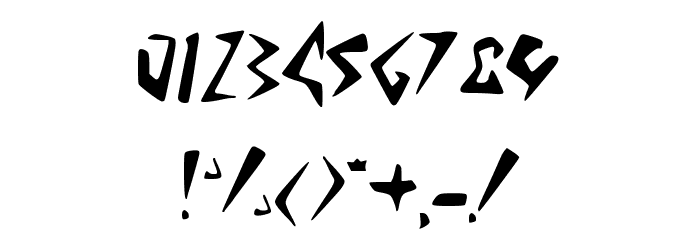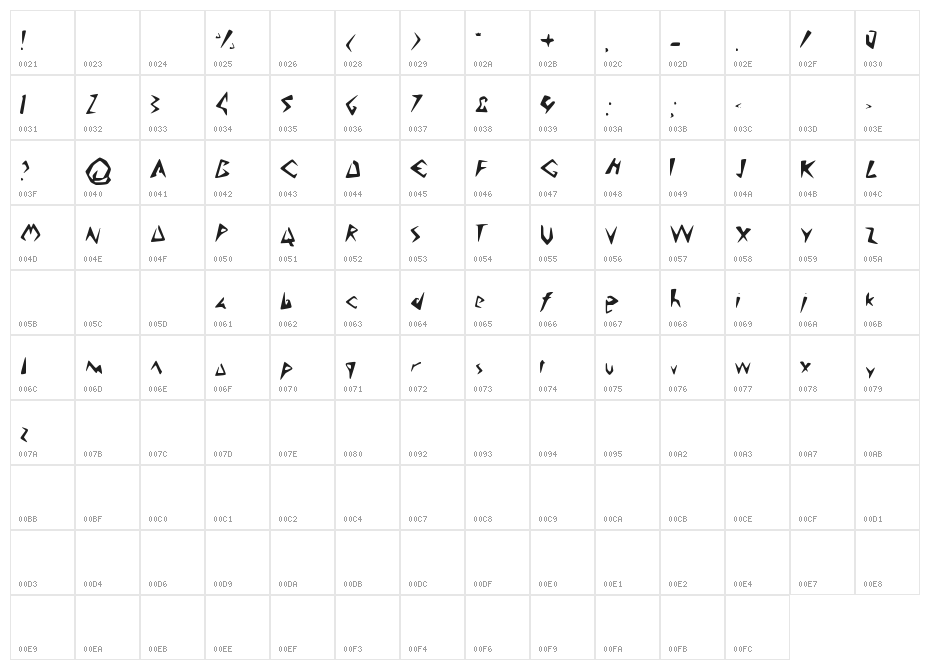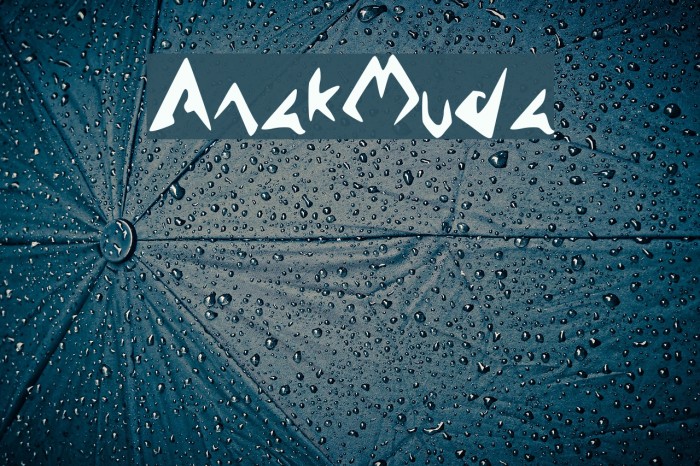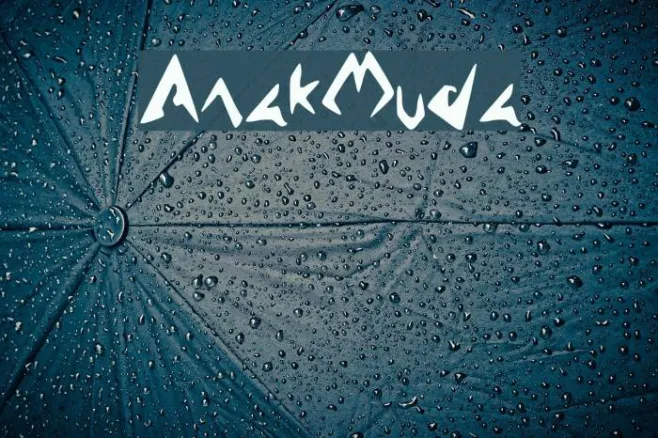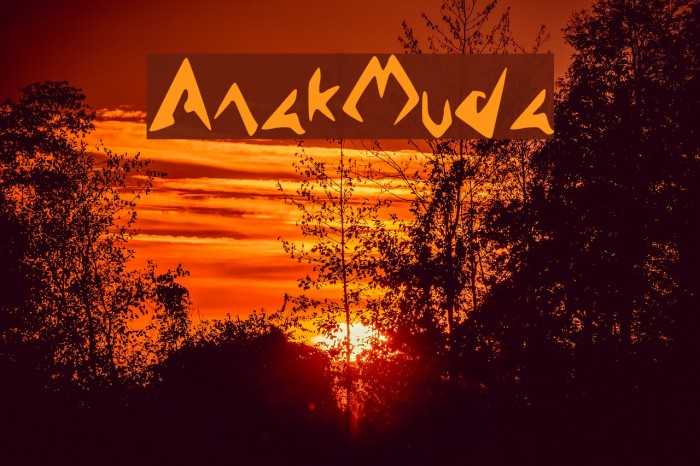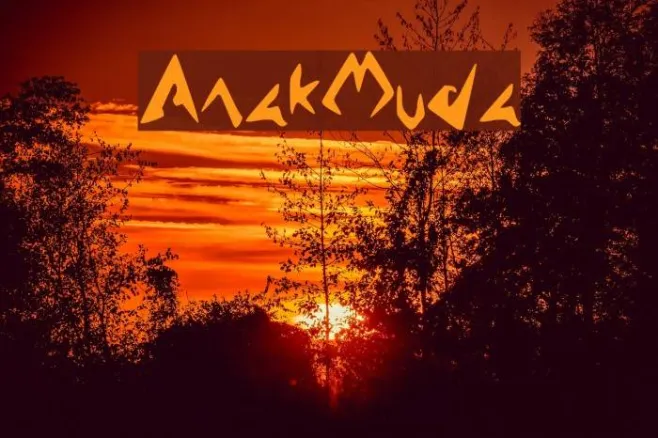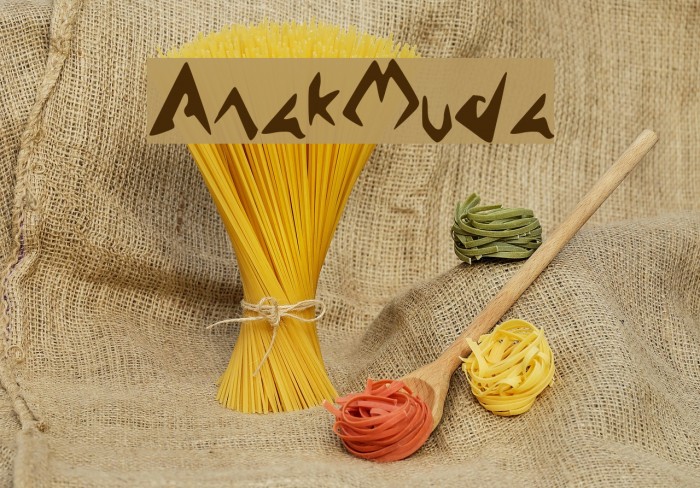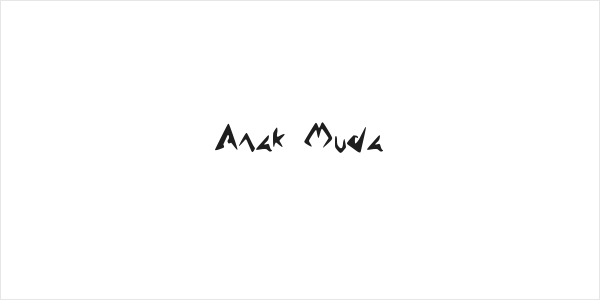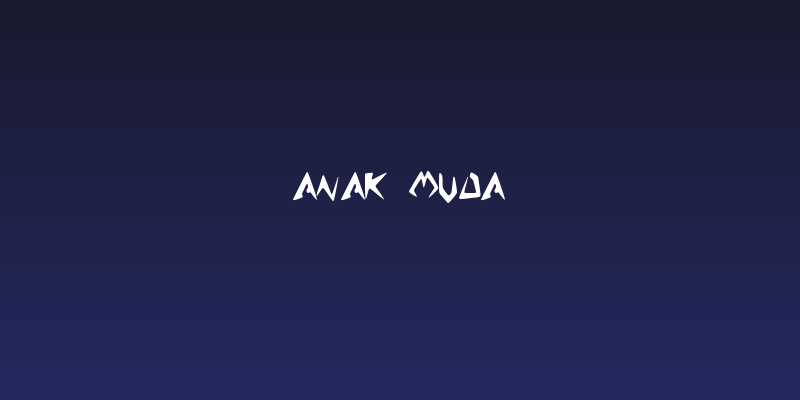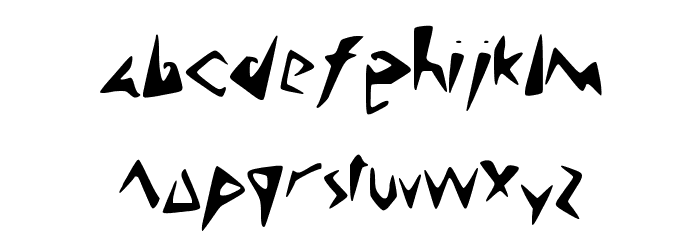
Anak_Muda Font
Anak_Muda Description
This font features a bold and edgy design with sharp, angular lines that give it a dynamic and energetic appearance. The characters are uniquely crafted with irregular shapes, creating a sense of movement and spontaneity. The uppercase and lowercase letters maintain a consistent style, while the numbers and special characters follow the same angular theme. This font's distinct style makes it stand out, offering a modern and unconventional look that is both artistic and expressive.
| Proposed Projects | Ideal for projects that require a modern, artistic touch such as album covers, posters, branding for edgy products, or any creative design that seeks to make a bold statement. |